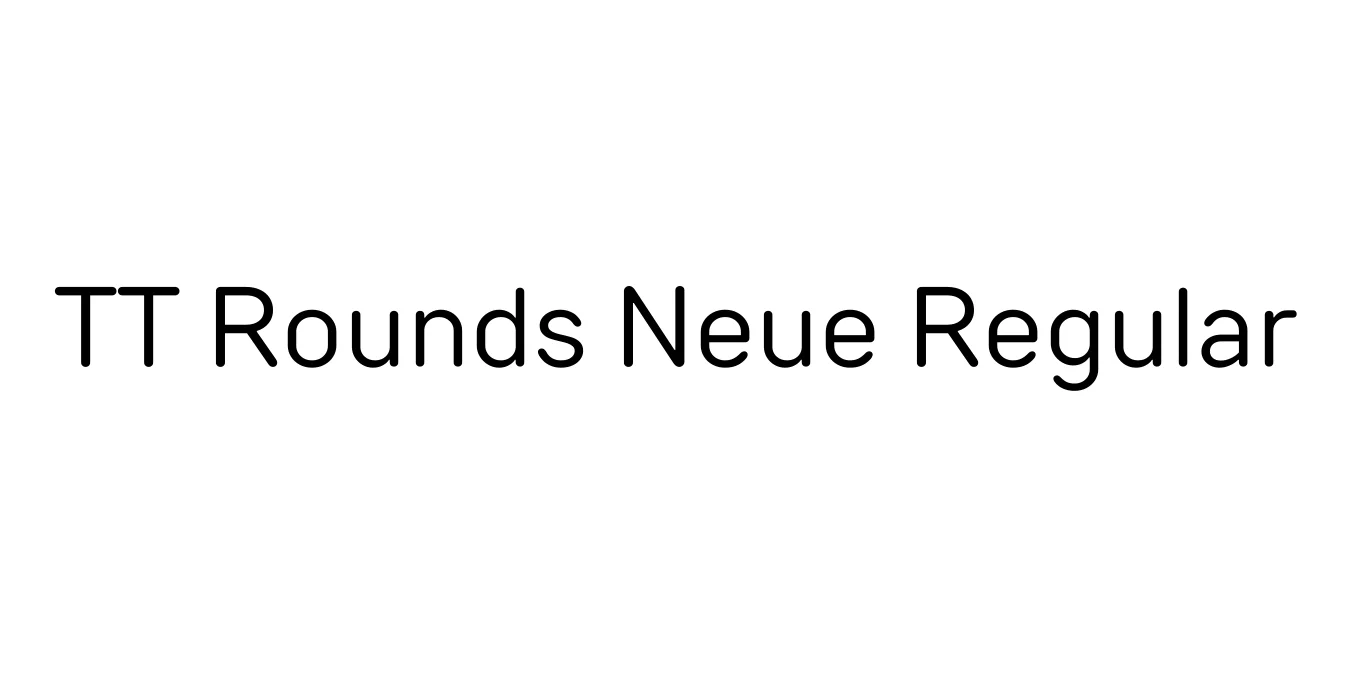
TT Rounds Neue Regular
Designed by TypeType Team
| Category | Rounded Sans Serif |
| Designer | TypeType Team |
| Similar Fonts | VAG Rounded, Arial Rounded, Proxima Soft, Comfortaa |
TT Rounds Neue Regular is a comprehensive redesign of the classic TT Rounds font family, meticulously crafted by the TypeType foundry. This modern rounded sans-serif was developed to bridge the gap between technical precision and emotional softness, offering a clean yet approachable aesthetic that works across both digital and print mediums. The font features refined proportions, optimized kerning, and a versatile weight range that ensures high legibility even in small point sizes.
Throughout its development, the designers focused on correcting the optical imbalances of its predecessor, resulting in a more balanced and harmonious typeface. Its friendly character makes it particularly popular for branding, UI design, and children's products. As a contemporary geometric rounded face, it stands out for its smooth terminals and open apertures, making it a reliable choice for designers seeking a professional yet warm typographic voice.
TT Rounds Neue Regular Best Uses
Ideal for creating approachable and friendly brand identities.
Excellent for user interface elements where a soft, non-aggressive look is needed.
Highly effective for catchy headlines in advertising and social media graphics.
Provides great legibility for headers and body text in modern layouts.
Perfect for organic food products or children's toy packaging.